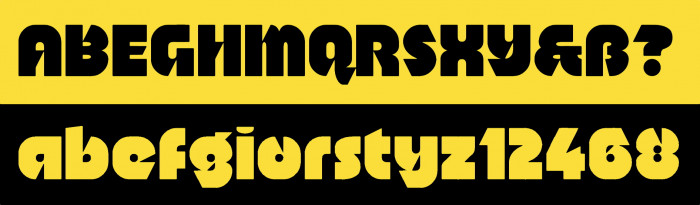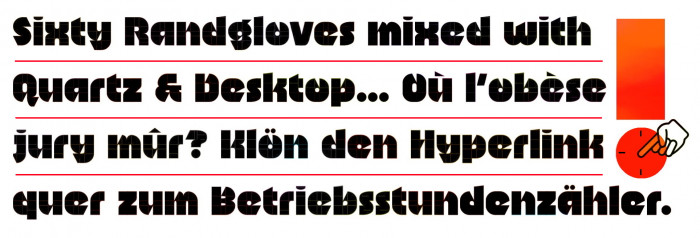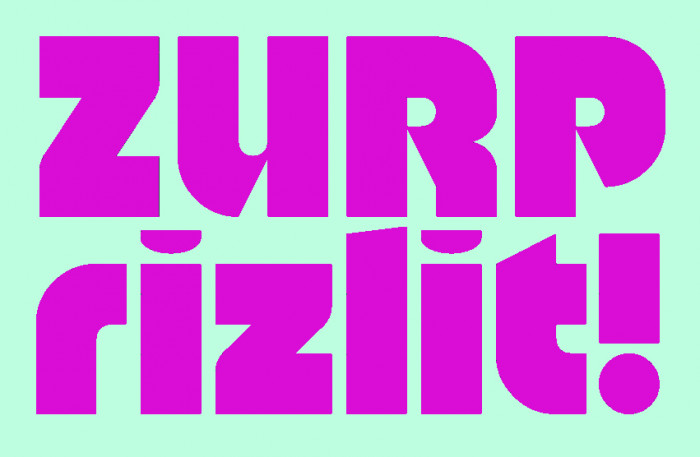
Ligatures "ff" and "tt" are at the "fi" and "fl" glyphs.
Awesome! And the samples are beautiful.
So amazing. The deep angular cuts adds so much life to the glyphs. The ampersand and the { } are amazing. I really appreciate the consistency of the high quality work that you do.
Another well-deserved Top Pick~
Compact and playful, very beautiful!